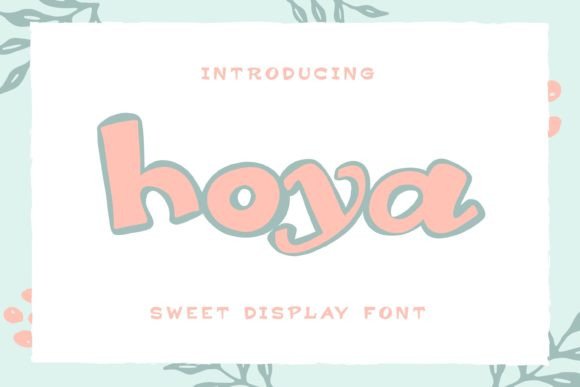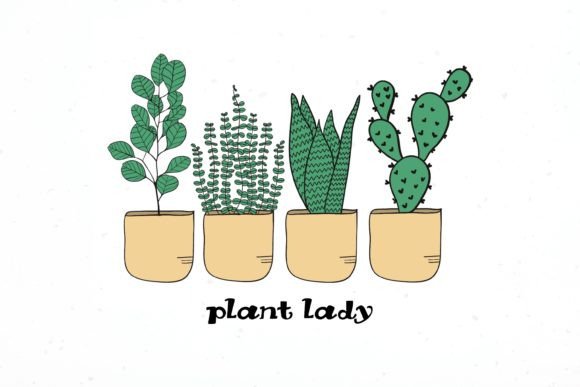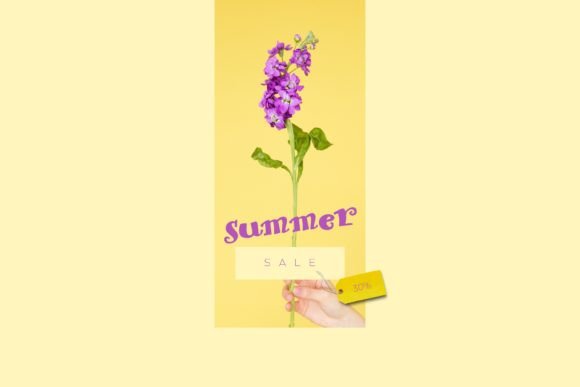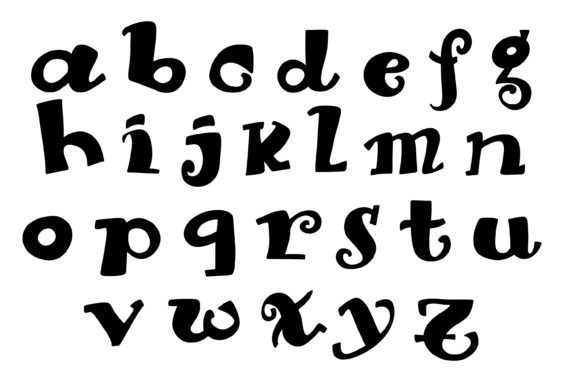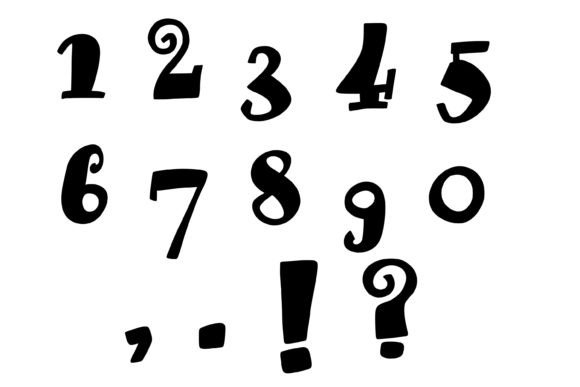
Hoya: A Playful Hand-Drawn Slab Serif Font
Hoya is a hand-drawn slab serif font, perfect for poster designs, card designs, stickers, and more. It’s also ideal for decorating classrooms or even kids’ artworks. Try Hoya on your artwork today!
Key Features of Hoya
- Hand-Drawn Style: Offers a unique, playful look with a personal touch.
- Slab Serif Design: Features distinctive hand-drawn serifs that add character.
- Versatile Application: Suitable for various creative projects, especially those with a fun or childlike theme.
- Kid-Friendly Aesthetic: Perfect for designs aimed at children or educational settings.
Ideal Uses for Hoya
Hoya’s unique characteristics make it particularly well-suited for:
- Eye-catching poster designs
- Playful greeting card creations
- Fun and quirky sticker designs
- Classroom decorations and educational materials
- Children’s book covers and illustrations
- Whimsical social media graphics
- Creative DIY project lettering
When incorporating Hoya into your designs, consider these tips:
- Use for headlines or short phrases to showcase its hand-drawn charm.
- Experiment with different sizes to highlight the font’s playful features.
- Consider pairing with simpler sans-serif fonts for body text to create contrast.
- Utilize its kid-friendly appearance to create designs that appeal to children or evoke a sense of fun.
Hoya is an excellent choice for designers looking to add a playful and hand-drawn slab serif font to their typographic toolkit. Its ability to bring a fun and personal touch to various design projects makes it stand out in the world of typography. Whether you’re working on poster designs, creating greeting cards, or developing content for children’s education, Hoya offers the perfect blend of character and versatility.
Furthermore, Hoya’s unique design allows it to shine in various contexts where a touch of whimsy is desired. From classroom decorations to creative DIY projects, this font can elevate your designs with its distinctive style. Its hand-drawn appearance works particularly well in designs that aim to convey a sense of creativity and childlike wonder.
In conclusion, Hoya is a font that truly captures the essence of playfulness in typography. Its versatility across different applications showcases its adaptability to various creative needs. For those looking to add a touch of hand-drawn charm to their work, Hoya can enhance themed creations with its distinctive style. It’s the perfect choice for designers seeking to make a fun, personalized impact across a wide range of creative projects, especially those aimed at children or educational settings.